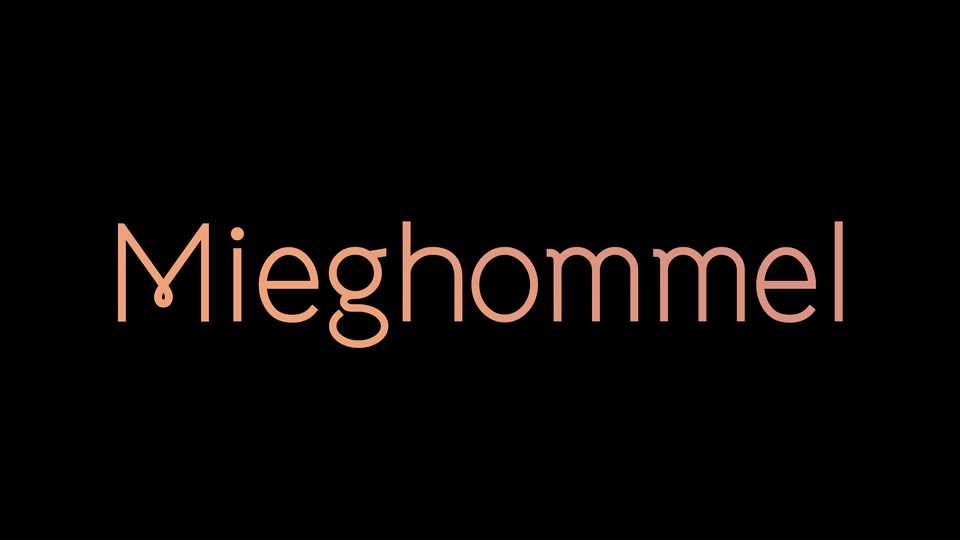
Download Mieghommel font, a simple sans serif typeface with curly tails. Mieghommel is suitable for cards, invitations, notes and other fun projects.
Designer: Tup Wanders